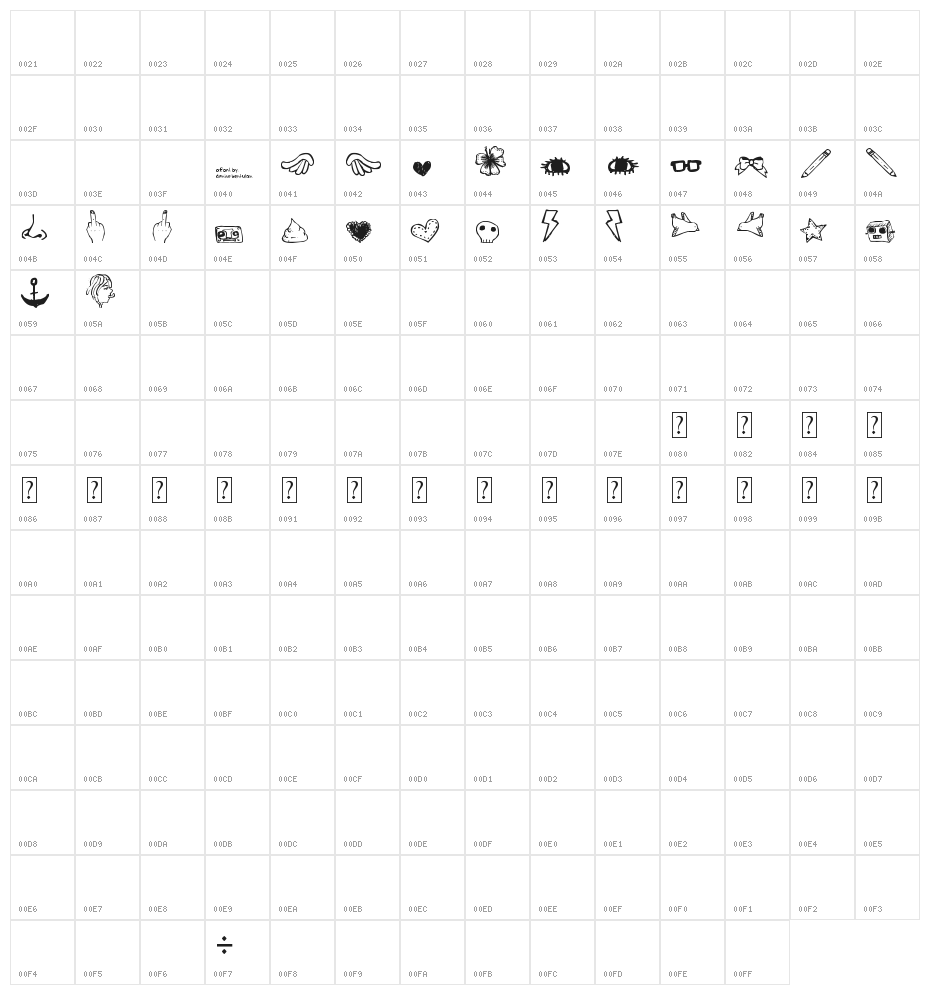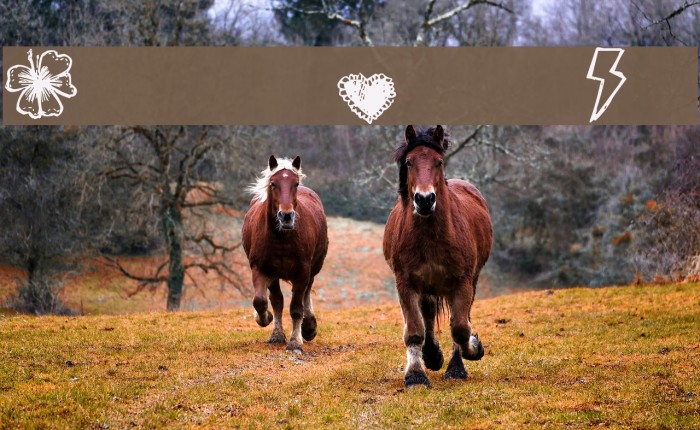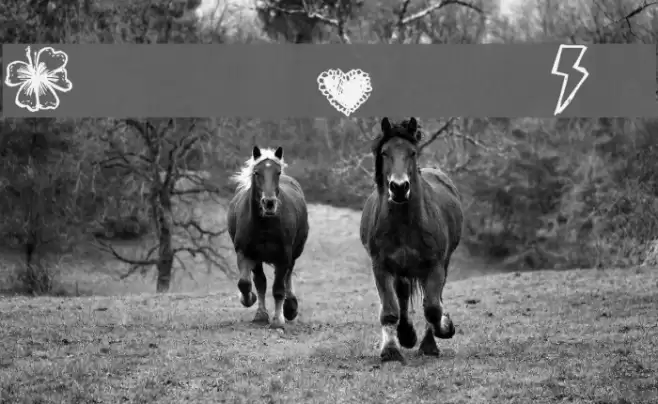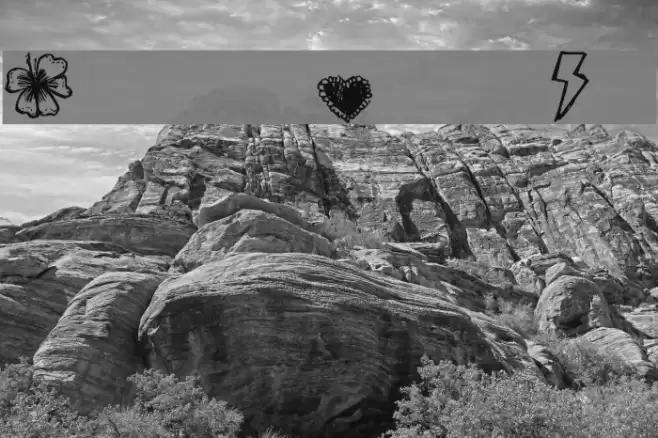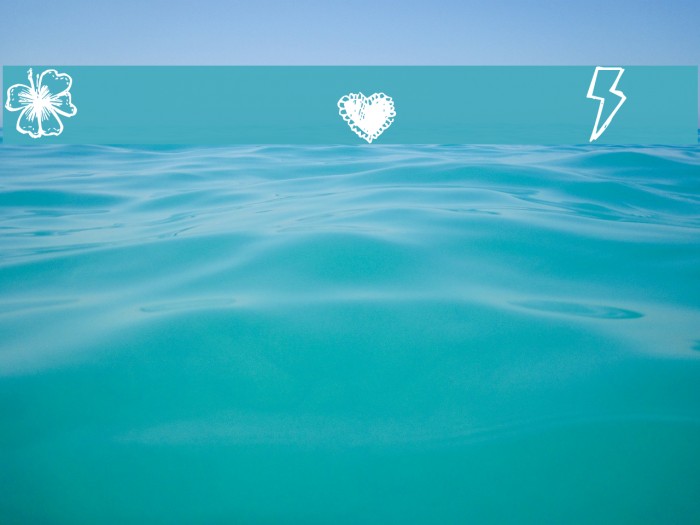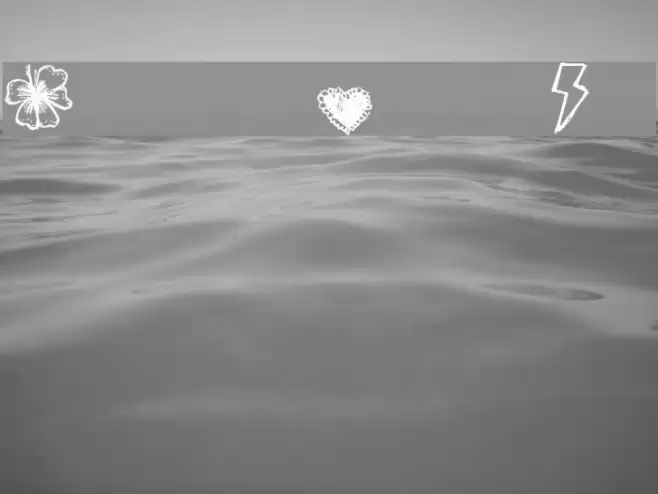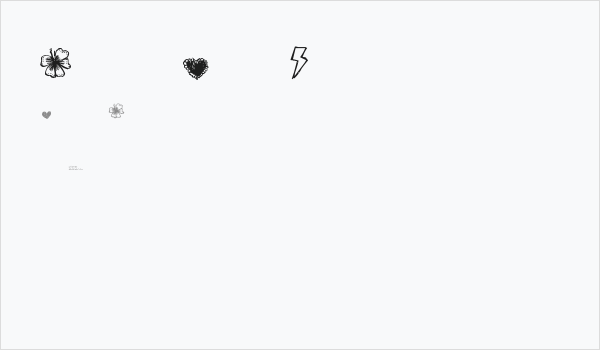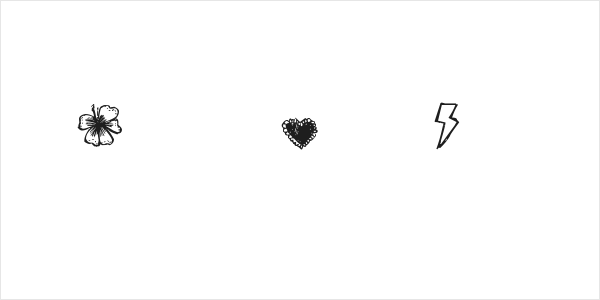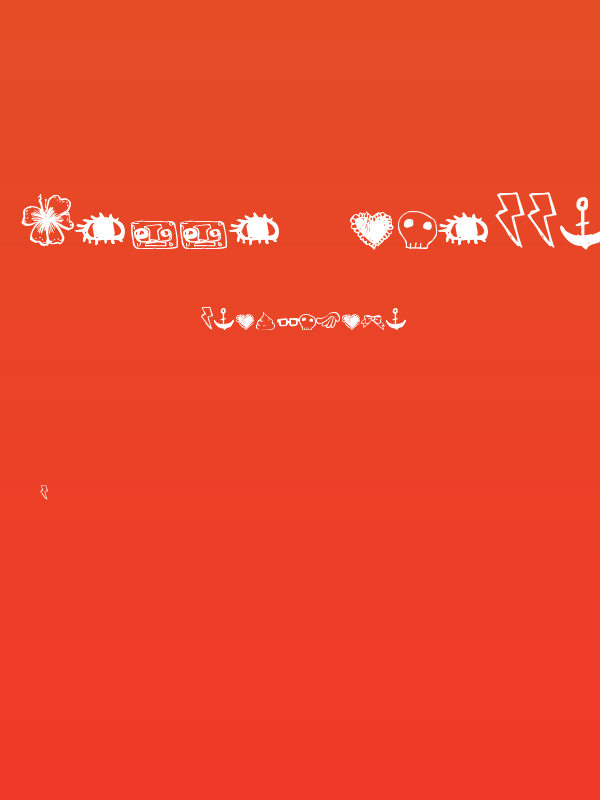
Denne | Pretty Shit Font
Denne | Pretty Shit Description
| Overall Style | Playful, Whimsical, Hand-drawn, Decorative |
| Use Case | Icons, Decorative elements, Themed graphics |
| Proposed Projects | Stickers, greeting cards, scrapbooking, posters, social media graphics, children's projects. |